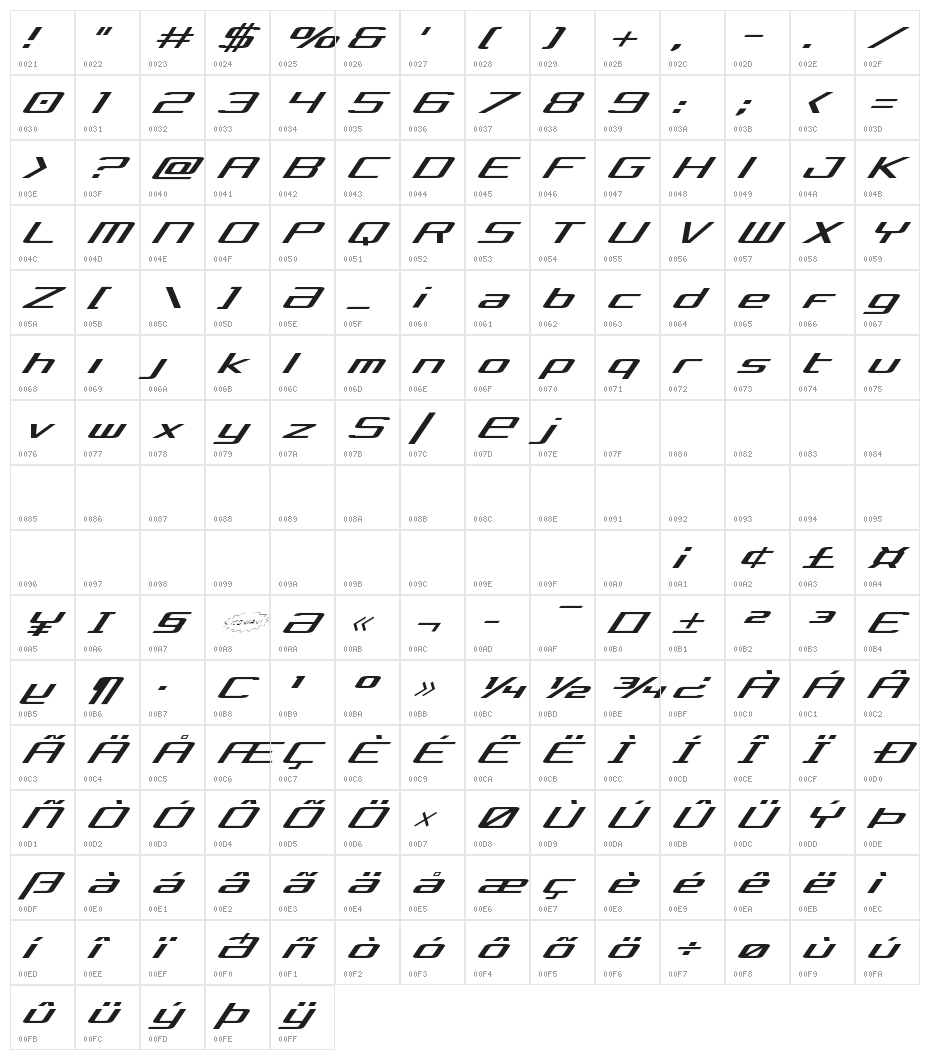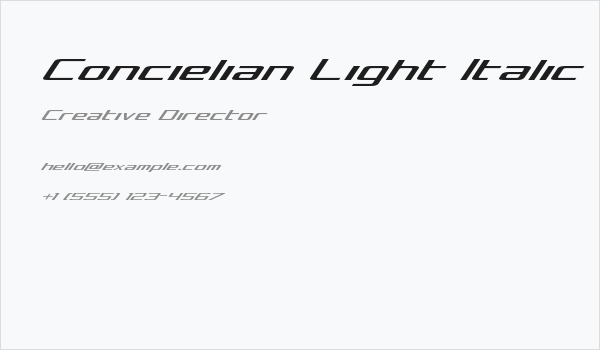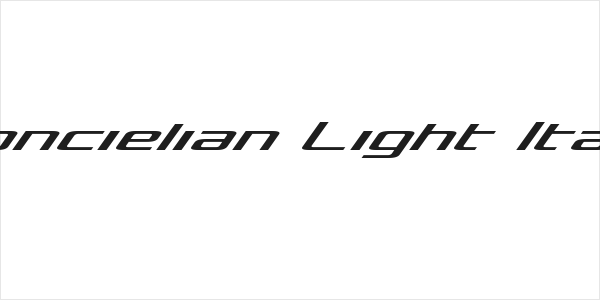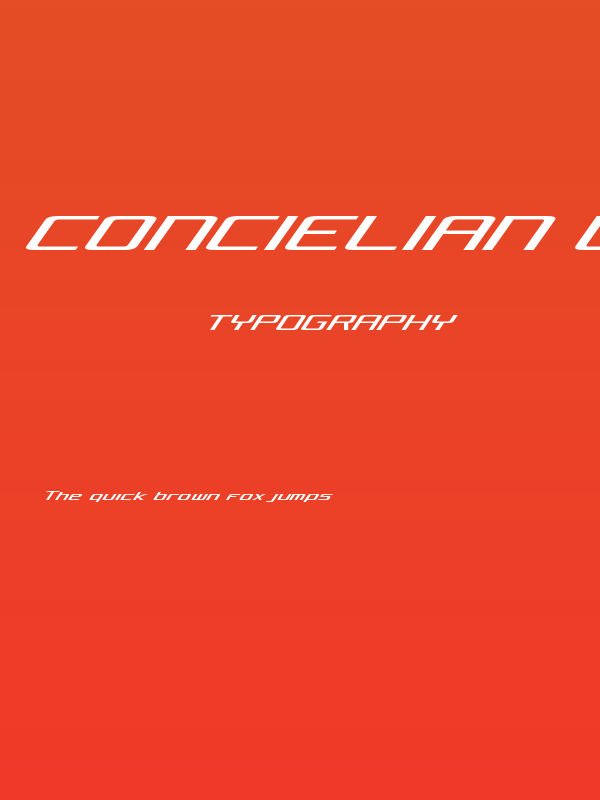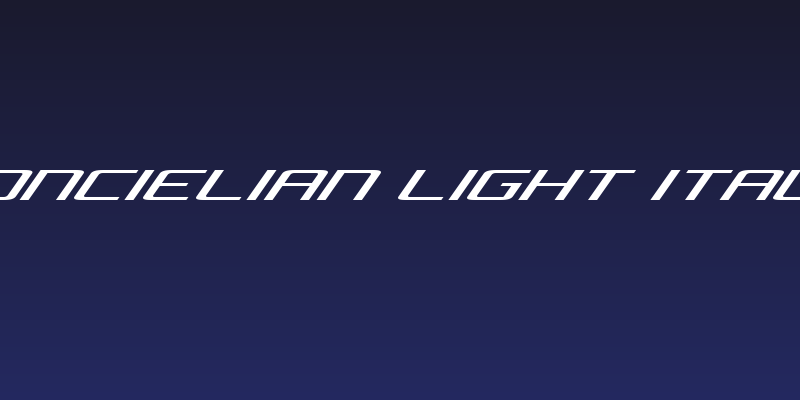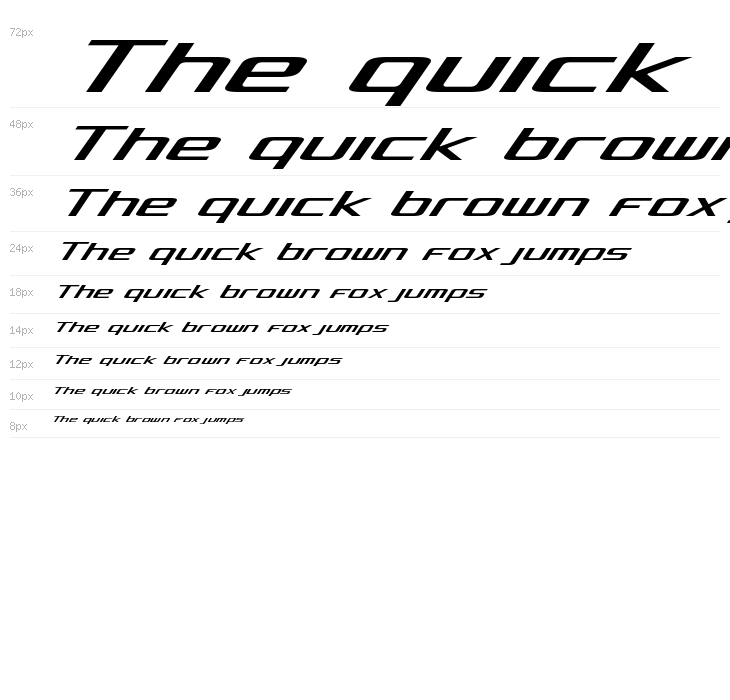
Concielian Light Italic Font
Concielian Light Italic Description
This font features a sleek and modern design with a distinct italic slant, giving it a dynamic and forward-moving appearance. The characters are crafted with precision, showcasing a geometric structure that emphasizes clean lines and sharp angles. The overall look is futuristic, with a slight nod to digital aesthetics. The uppercase and lowercase letters maintain a consistent style, while the numerals and special characters integrate seamlessly, offering versatility across various applications. The font's light weight adds an element of elegance, making it suitable for both professional and creative projects.
| Use Case | Logos, Headlines, Digital Interfaces |
| Proposed Projects | Ideal for technology branding, modern advertising, digital interfaces, and innovative product packaging. |